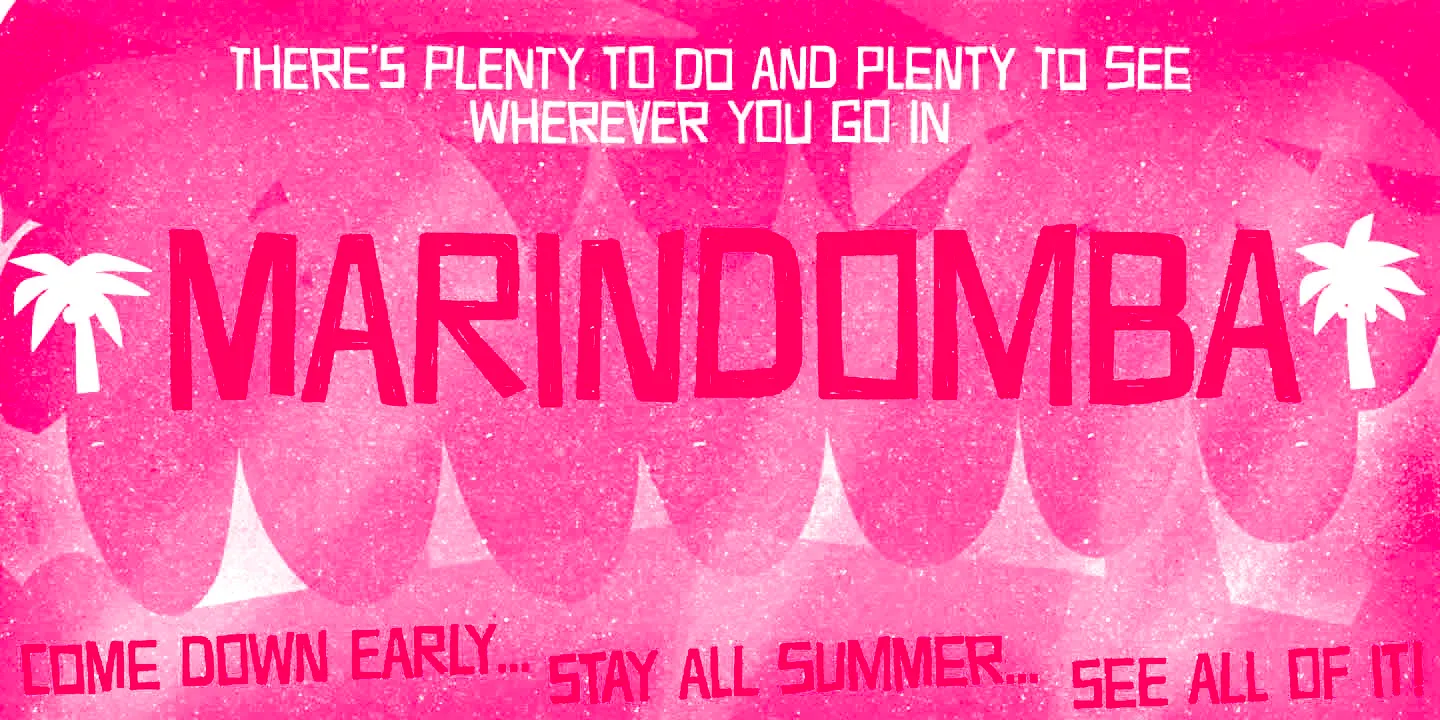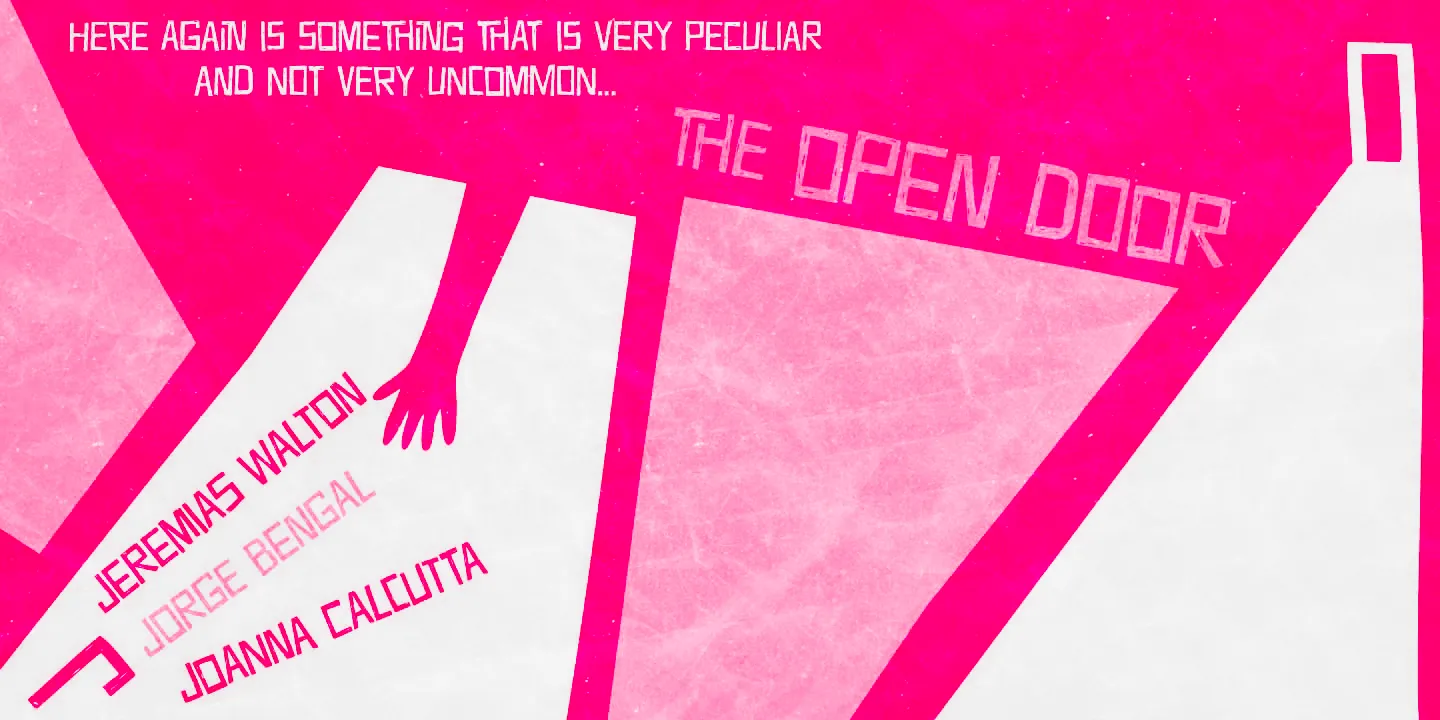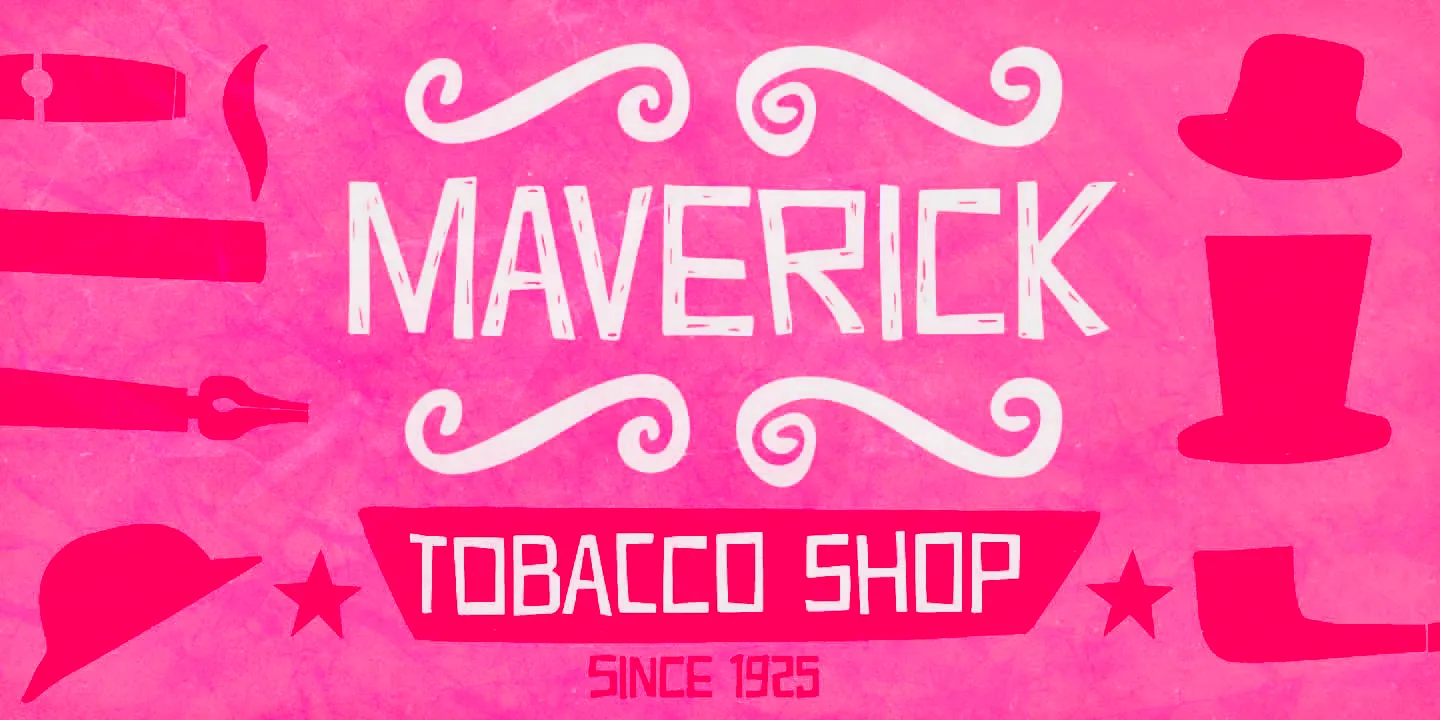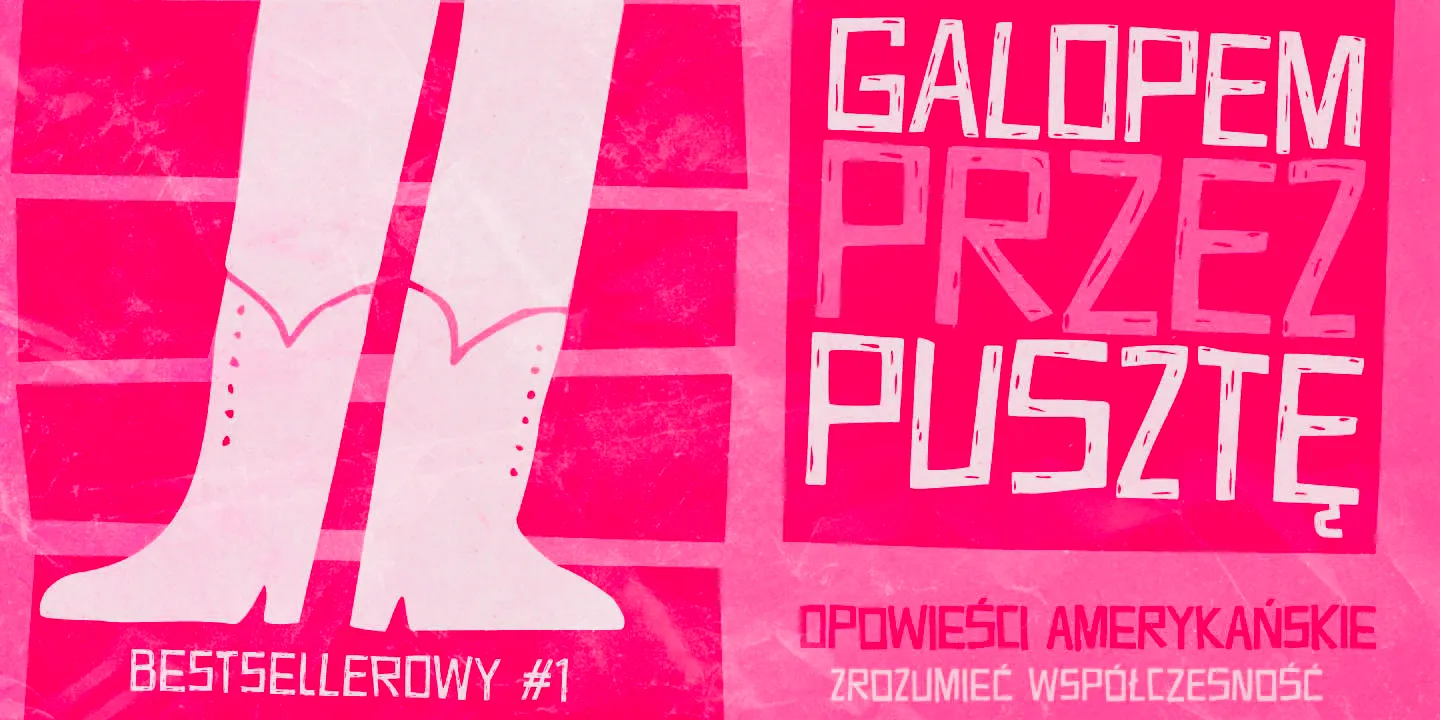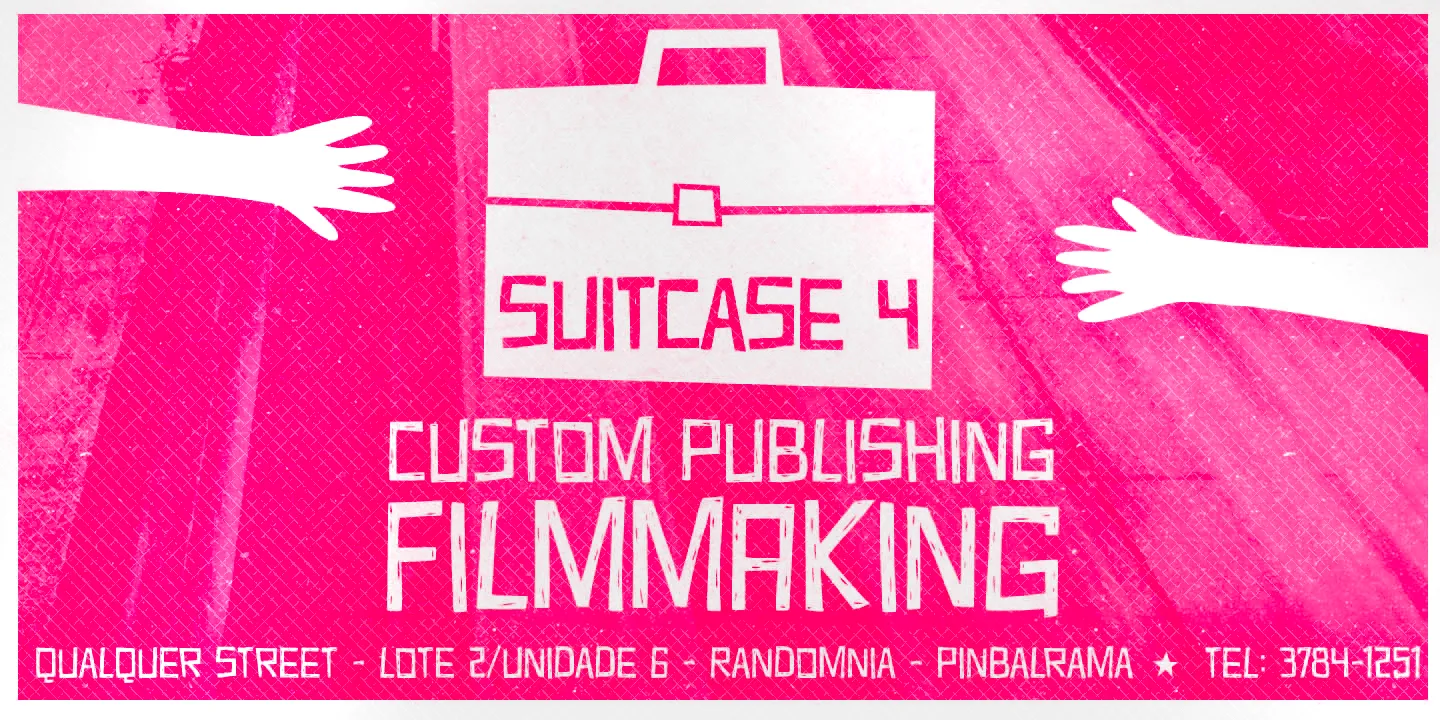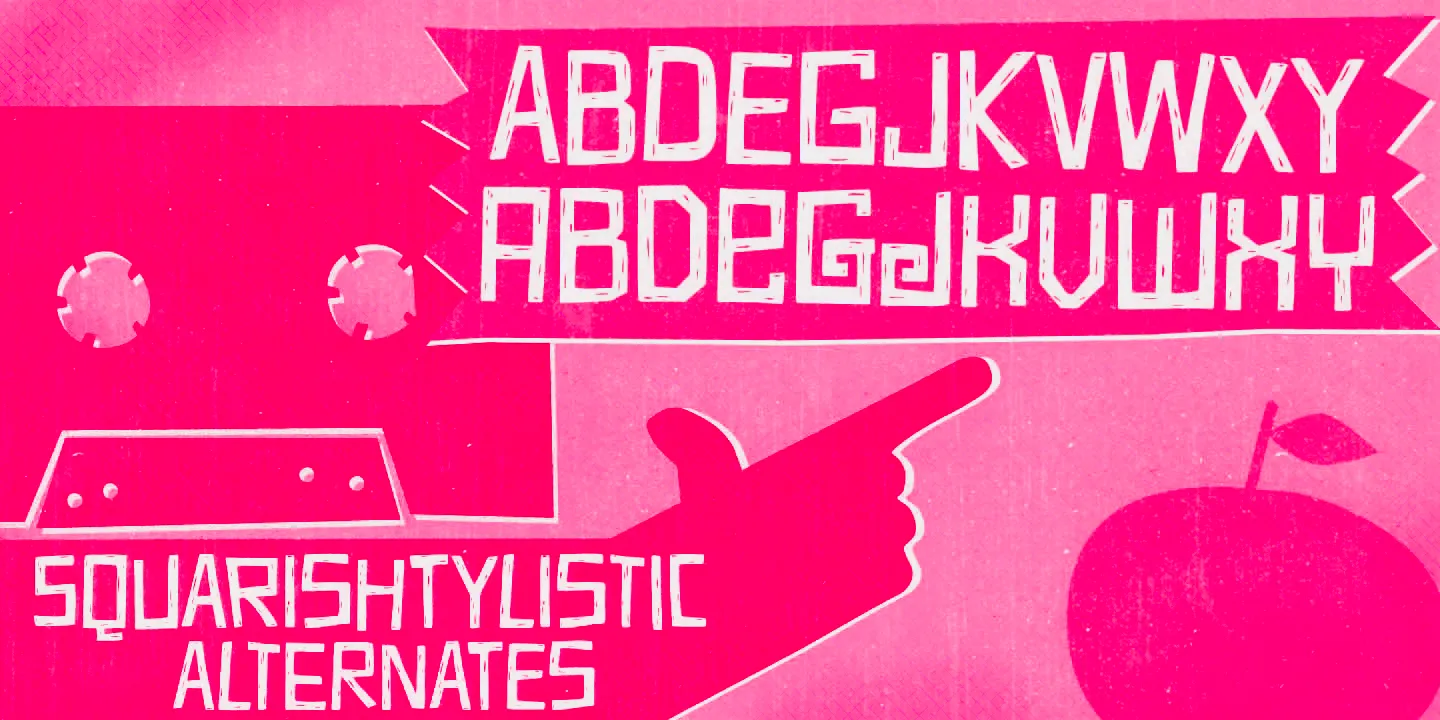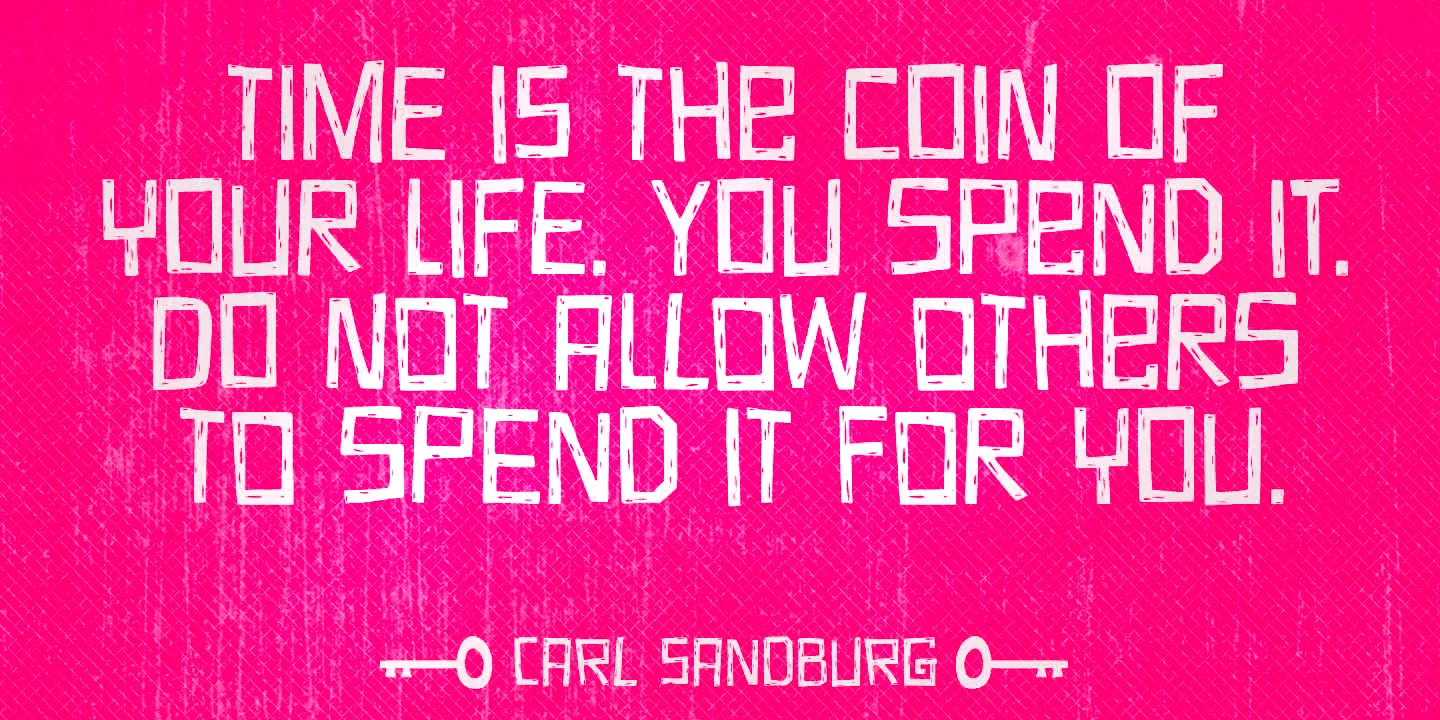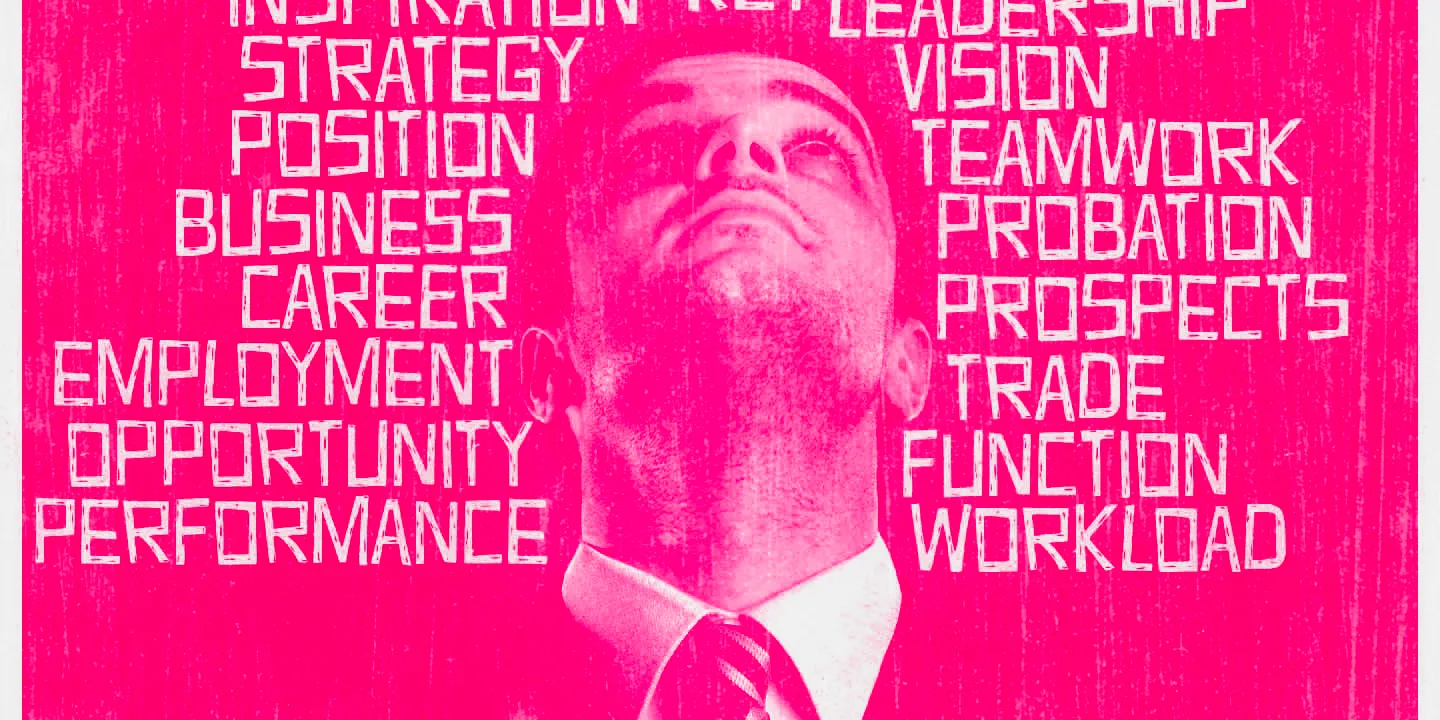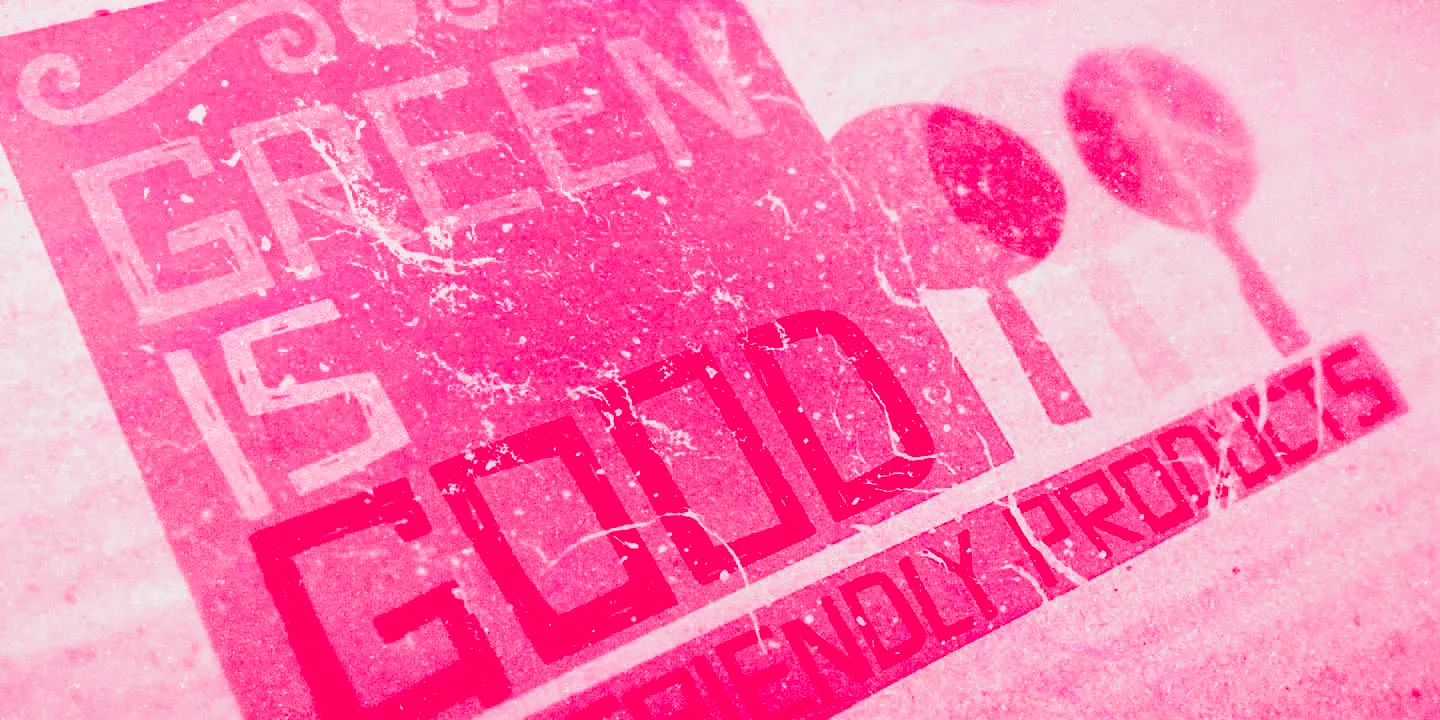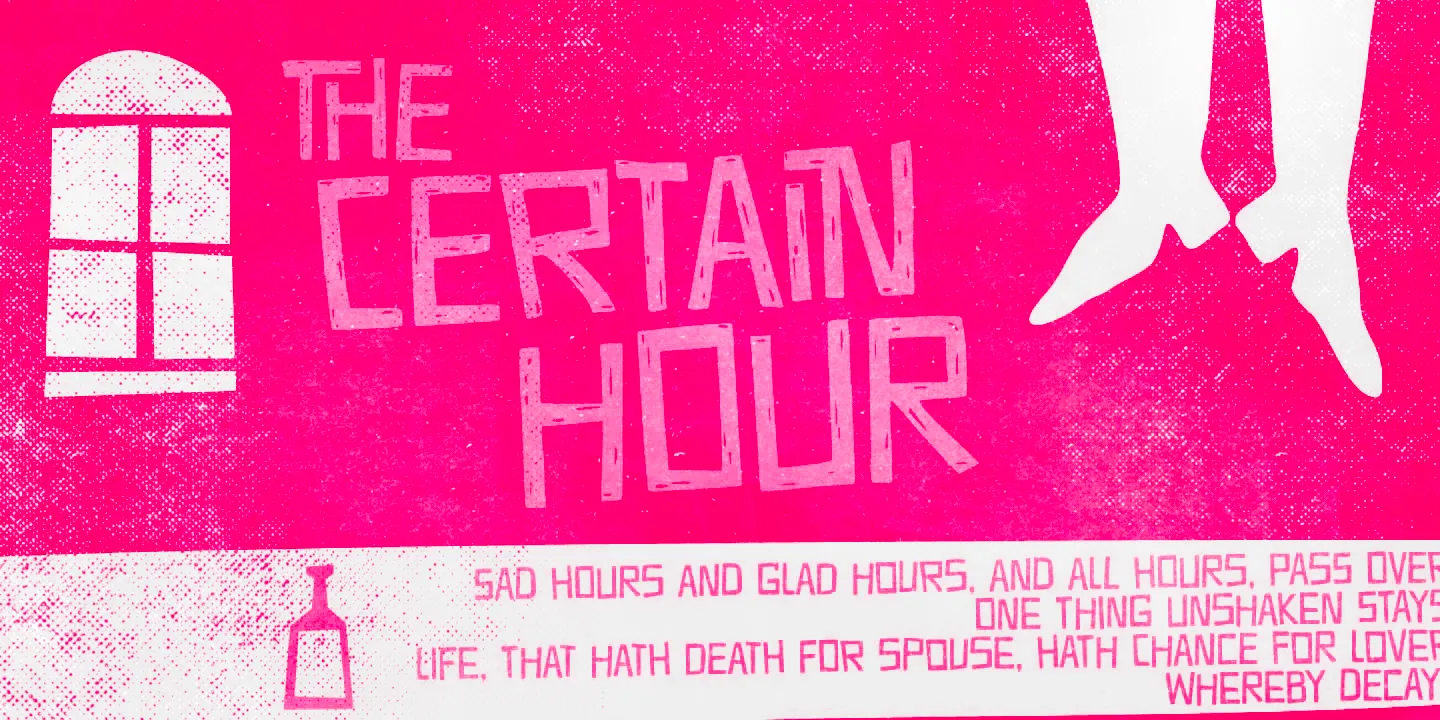
Sabotage
Sabotage is an irregular but lively all-caps typeface inspired by the lettering of Saul Bass found on his iconic Vertigo movie poster. With two versions of each letter for added flexibility and to enhance the hand-drawn feel, this font is suitable for a wide range of eye-catching design projects. Sabotage is available in 2 flavors: solid and not-that-solid. Also included is a cool, complementary picture font that draws inspiration from the minimalist yet striking book cover illustrations of Dick Bruna.
- Discretionary Ligatures
- Stylistic Alternates
- Stylistic Sets